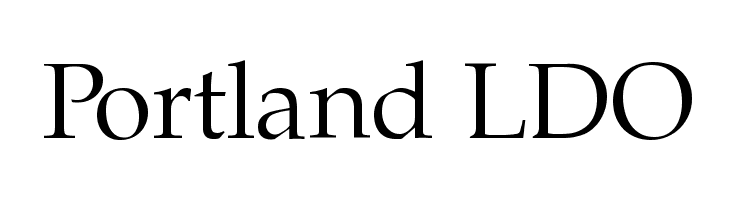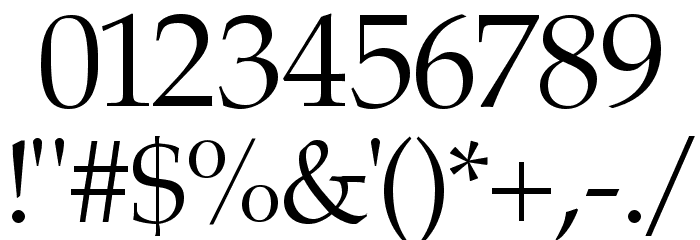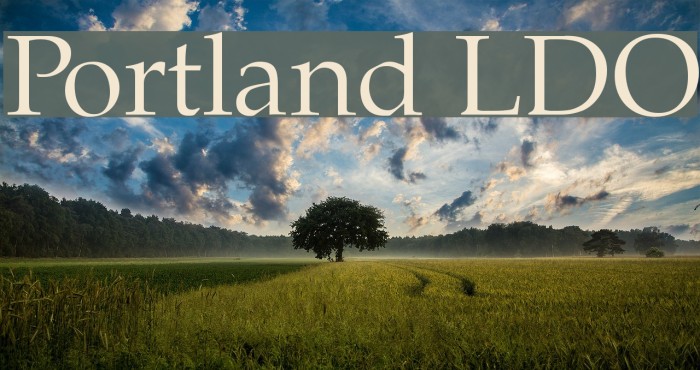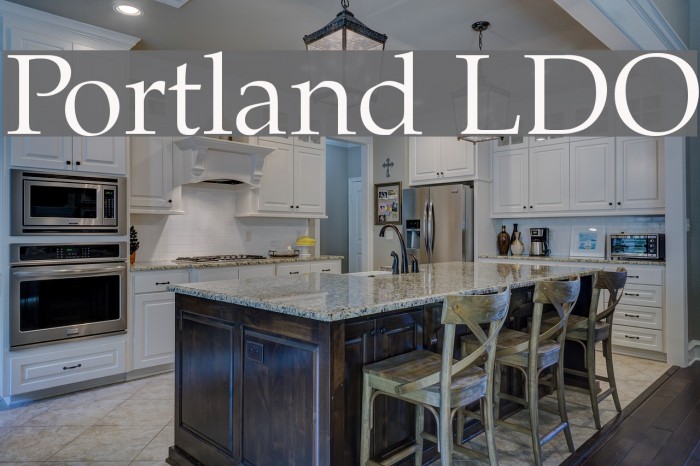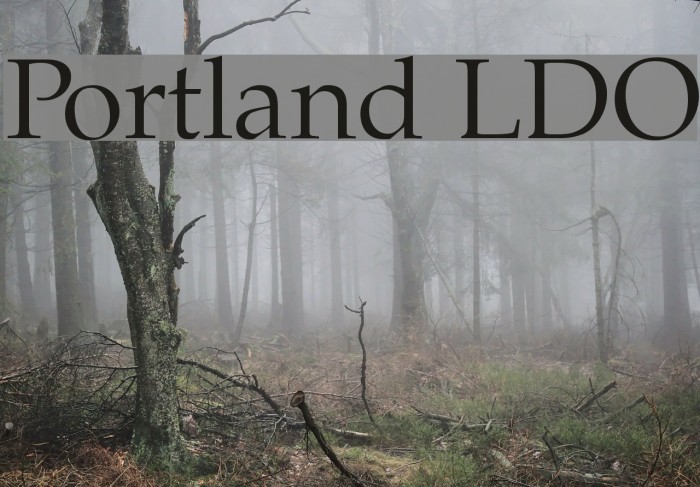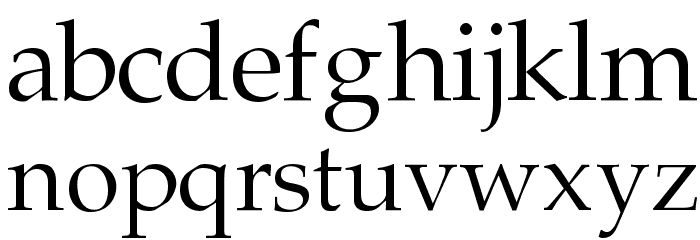
Portland LDO
This font exhibits a classic serif style with elegant and refined strokes. The uppercase letters are well-proportioned, featuring slight contrast in stroke thickness that adds a touch of sophistication. The lowercase letters maintain a consistent style, with smooth curves and sharp serifs that enhance readability. Numerals are clear and distinct, making them suitable for both display and text settings. The special characters are thoughtfully designed, ensuring they blend seamlessly with the overall aesthetic. This font's timeless appeal makes it versatile for various design applications.
A classic serif font with elegant strokes and refined details.
- Proposed Projects: Ideal for editorial design, book covers, formal invitations, and branding projects that require a touch of elegance.
- Category: Serif
- Overall Style: Classic